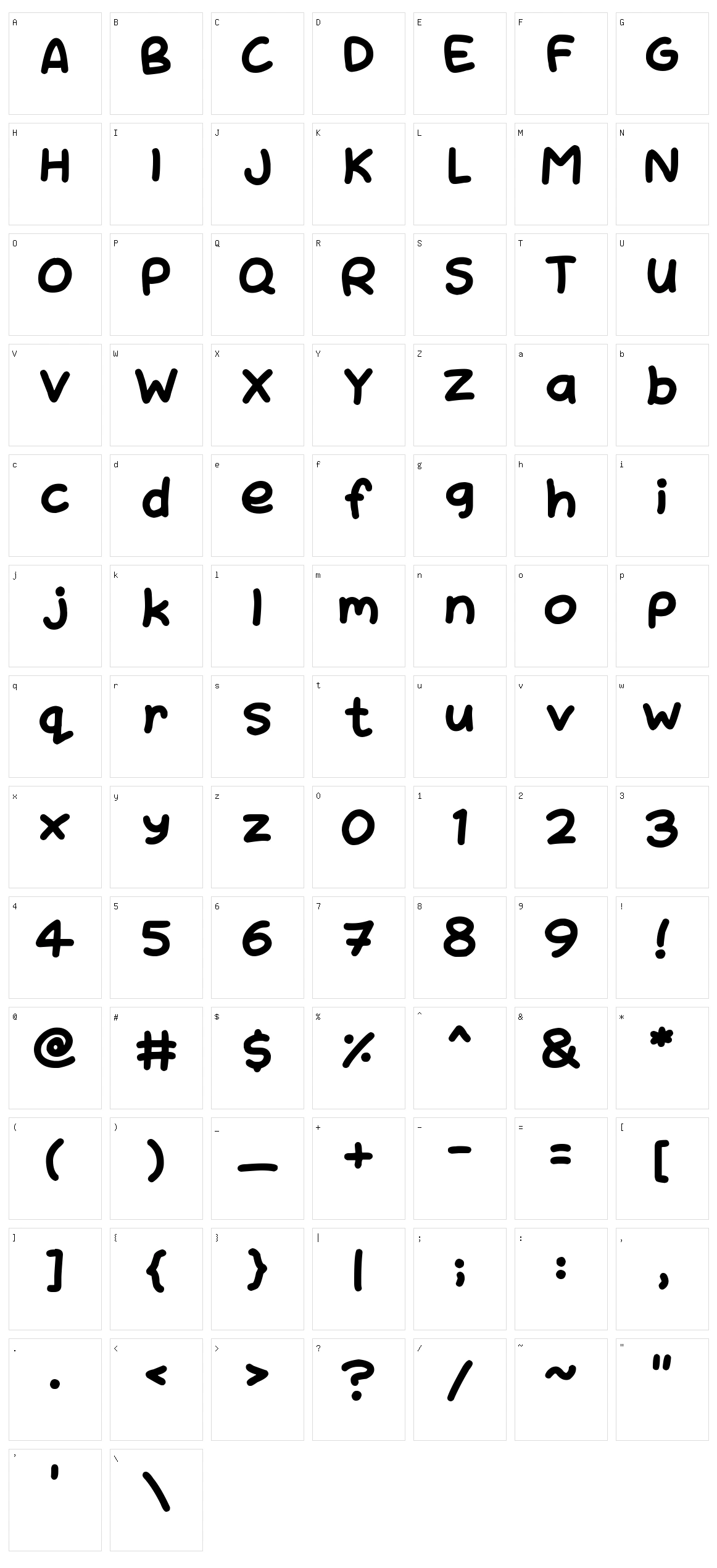
The free font Natural Sugars is carefully designed by Hawtpixel, showcasing a thoughtful balance of creativity and usability and falls under the Script font style. When you download the ZIP file, it contains only 103.46 KB of font files, making it lightweight and quick to download. Please review the license details below to understand permitted usage and distribution rights. If license information is not available, we recommend using this font for personal projects only or contacting the author directly for commercial usage permissions.